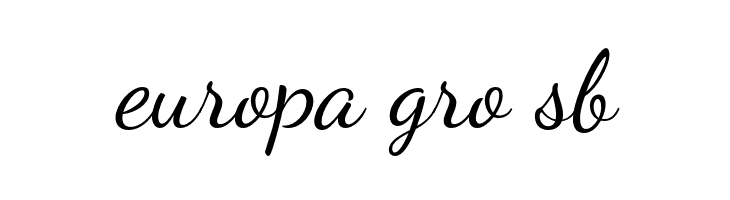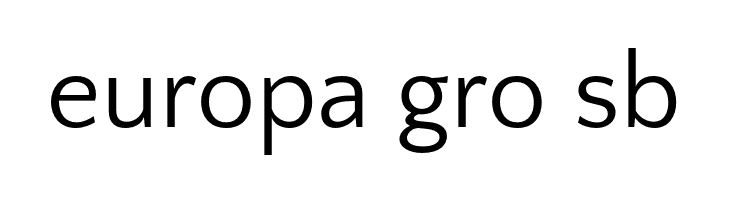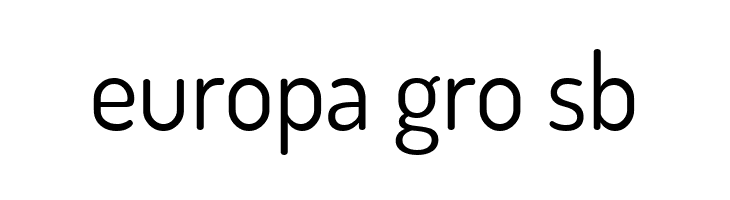
A modern, wide, and extra light sans-serif font with clean lines and spacious design.
A bold, wide sans-serif font with a strong geometric structure.
A modern, wide sans-serif font with excellent readability and a clean design.
A modern, wide sans-serif font with a light, minimalist style.
A modern, wide sans-serif typeface with a semi-bold weight, offering clarity and versatility.
A modern, wide sans-serif font with excellent readability and balanced proportions.
A bold, wide typeface with a modern geometric style.
A modern, wide, and thin sans-serif font with a clean and minimalistic design.
A lively, handwritten script font with smooth, rounded strokes and a playful touch.
A bold, narrow sans-serif font with a modern and impactful style.
A modern, narrow, and light sans-serif font with a sleek and elegant appearance.
A modern, narrow sans-serif font with a clean and professional look.
A modern, narrow sans-serif font with an extra light weight and sleek design.
A modern, narrow, and thin sans-serif font with a minimalist design.
A modern, narrow, and bold sans-serif typeface with tight spacing.
A bold, narrow typeface with a modern and impactful design.
A modern, narrow sans-serif font with semi-bold weight.
A modern, narrow sans-serif font with clean lines and excellent legibility.
A bold, condensed font with a modern and impactful style.
A modern, clean, and condensed sans-serif typeface with a focus on readability.
A modern, condensed sans-serif font with medium weight and excellent legibility.
A bold, condensed sans-serif font with a modern and clean design.
A modern, condensed sans-serif font with a clean and professional look.
A modern, compressed sans-serif font with a clean and uniform appearance.
A modern, compressed sans-serif font with medium weight and tight spacing.
A modern, compressed sans-serif font with a light and elegant style.